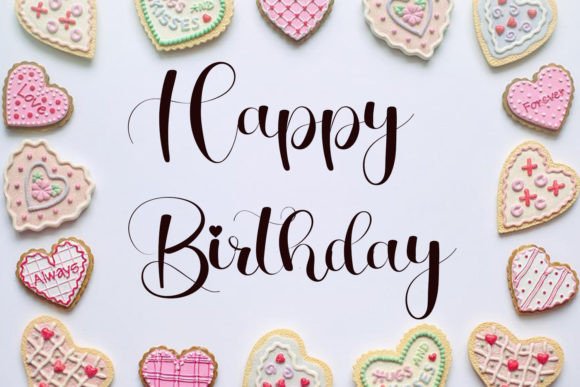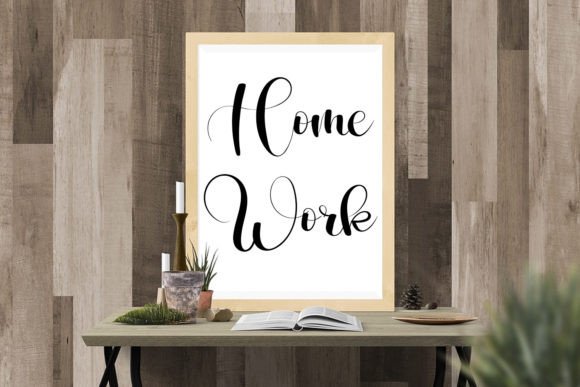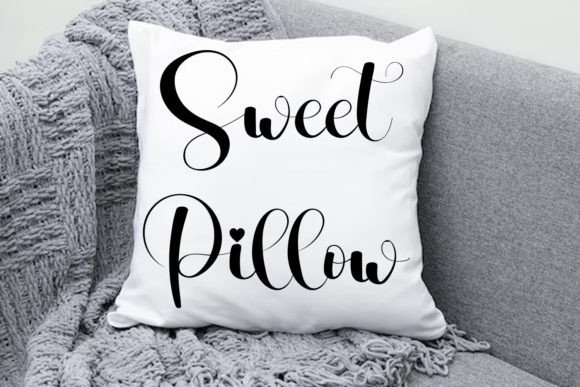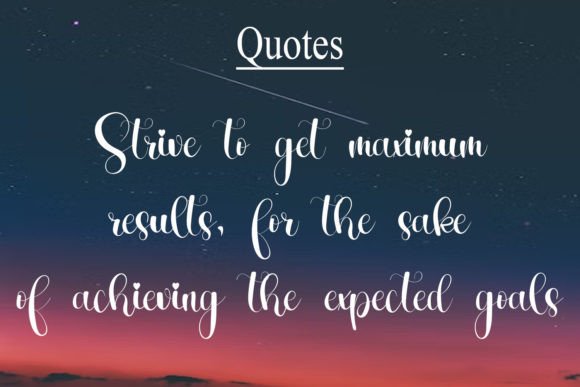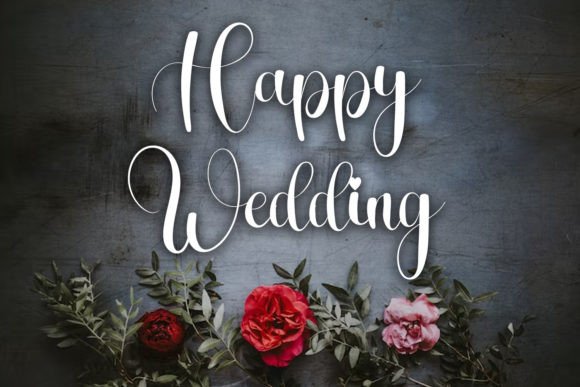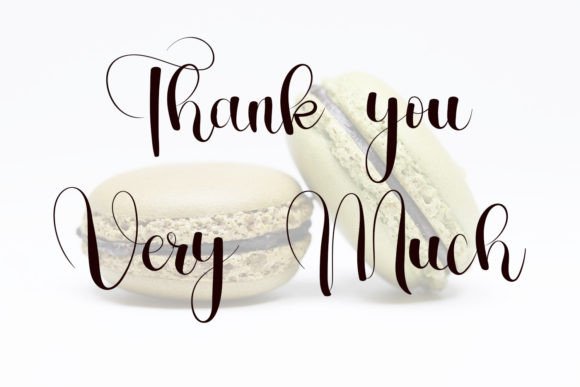
Biscuits Font: Elevate Your Design with a Touch of Luxury
In the world of typography, a font can make or break a design project. If you’re looking for a fresh and beautiful handwritten script font that adds a touch of luxury to your creations, look no further than Biscuits Font. This stunning font is designed to bring a spark of elegance and sophistication to any design project, making it perfect for designers and crafters alike.
The Charm of Biscuits Font
Biscuits Font is a carefully crafted handwritten script font that exudes a sense of luxury and refinement. Its fresh and beautiful letterforms are designed to add a touch of elegance to any design project, from branding and packaging to invitations and stationery. With its flowing lines and delicate curves, Biscuits Font is sure to capture the attention of your audience and leave a lasting impression.
Key Features of Biscuits Font
- Handwritten Script Font: Biscuits Font is a genuine handwritten script font, giving it a personal and unique touch that’s perfect for designs that require a human touch.
- Luxury Appeal: With its elegant letterforms and refined lines, Biscuits Font adds a touch of luxury to any design project, making it perfect for high-end branding and packaging.
- Fresh and Beautiful: Biscuits Font is a fresh and beautiful take on traditional script fonts, making it perfect for designers and crafters looking for a unique and eye-catching font.
- Versatile: Biscuits Font can be used for a wide range of design projects, from invitations and stationery to branding and packaging.
Why Choose Biscuits Font?
With so many fonts available, why choose Biscuits Font for your design projects? Here are just a few reasons why Biscuits Font stands out from the crowd:
- Unique and Eye-Catching: Biscuits Font is a unique and eye-catching font that’s sure to capture the attention of your audience.
- Easy to Read: Despite its elegant and refined lines, Biscuits Font is easy to read, making it perfect for designs that require a clear and concise message.
- High-Quality: Biscuits Font is a high-quality font that’s designed to deliver exceptional results, even at large sizes.
How to Use Biscuits Font in Your Design Projects
Using Biscuits Font in your design projects is easy. Here are a few tips to get you started:
- Pair it with Other Fonts: Biscuits Font pairs perfectly with other fonts, making it easy to create stunning contrast and visual interest in your designs.
- Experiment with Colors: Biscuits Font looks great in a range of colors, from bold and bright to soft and pastel.
- Use it for Headings and Titles: Biscuits Font is perfect for headings and titles, adding a touch of luxury and elegance to your designs.
In conclusion, Biscuits Font is a fresh and beautiful handwritten script font that’s perfect for designers and crafters looking to add a touch of luxury to their design projects. With its elegant letterforms, refined lines, and versatile design, Biscuits Font is sure to elevate your designs and leave a lasting impression on your audience.